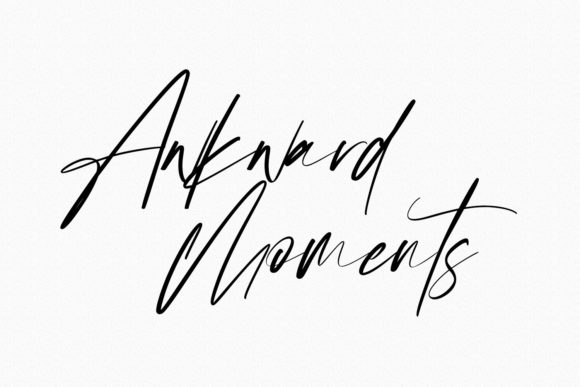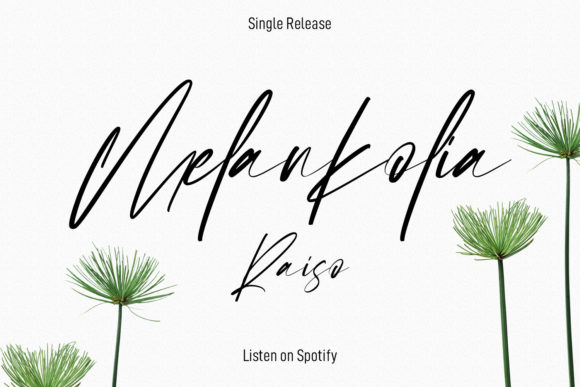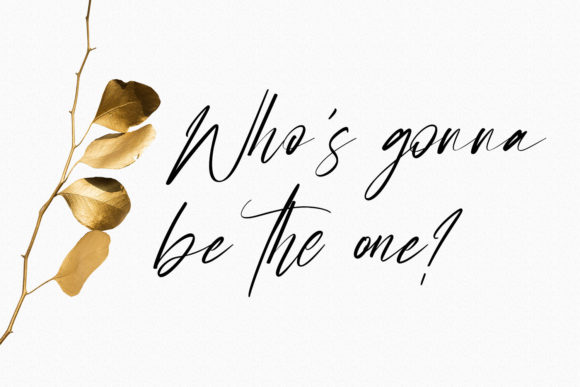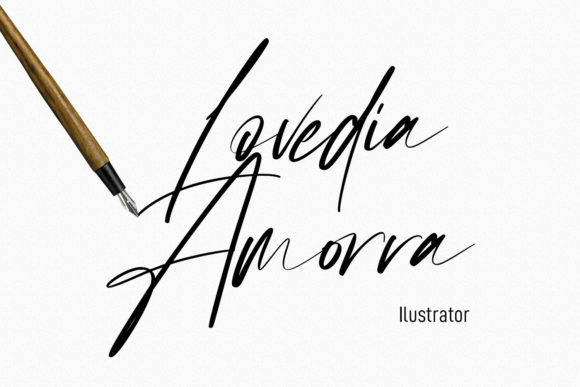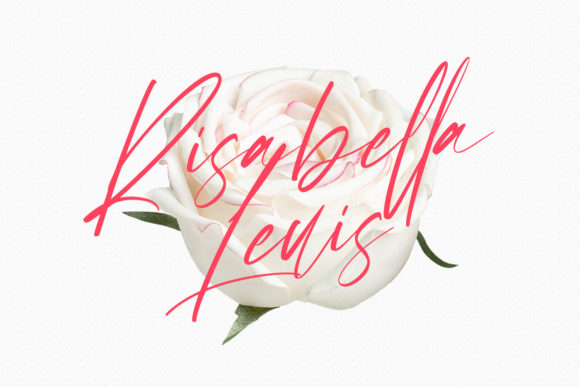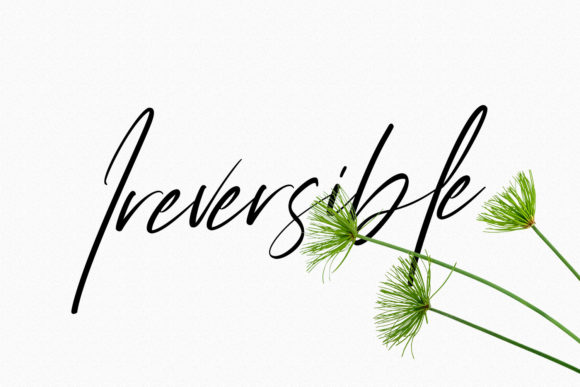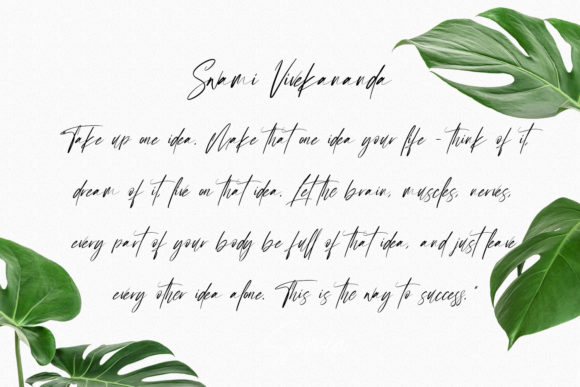
Sellyamor Script Font
About Sellyamor Script Font
Sellyamor Script is an enchanting handwritten font. This versatile script font has a wide spectrum of applications ranging from greeting cards to headlines. Sellyamor Script is PUA encoded which means you can access all of the glyphs and swashes with ease!